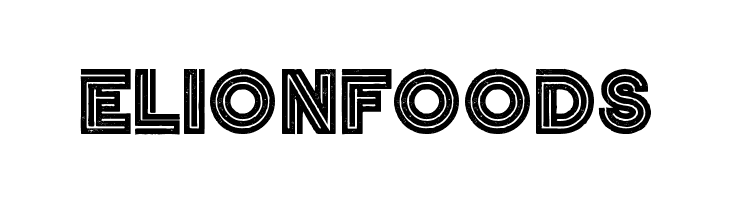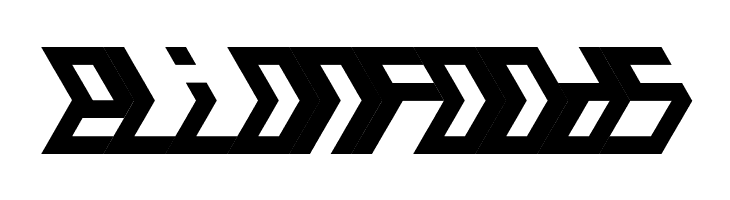
An artistic font with elongated features and a modern, elegant style.
A bold, expressive script font with a lively, handwritten style.
A playful, handwritten font with a casual and dynamic style.
A bold, grunge-style font with a distressed texture, perfect for vintage or edgy designs.
A lively and elegant script font with flowing, cursive letterforms.
A bold, grunge-style font with a distressed, textured appearance.
Expressive handwritten script font.
A bold, geometric font with a futuristic and dynamic design.
A bold, decorative font with angular, ornate designs and intricate flourishes.
A bold, geometric font with a segmented, digital appearance.
A bold, dynamic font with sharp, angular edges and an exotic flair.
An angular, decorative font with Gothic influences and intricate detailing.
A bold, flame-themed font ideal for dramatic and thematic designs.